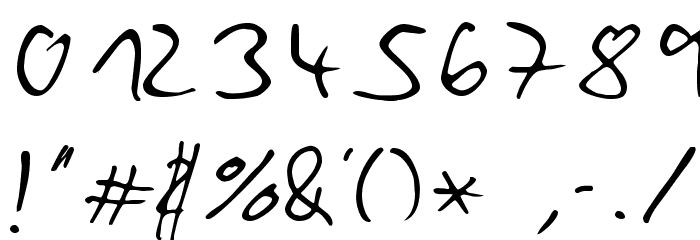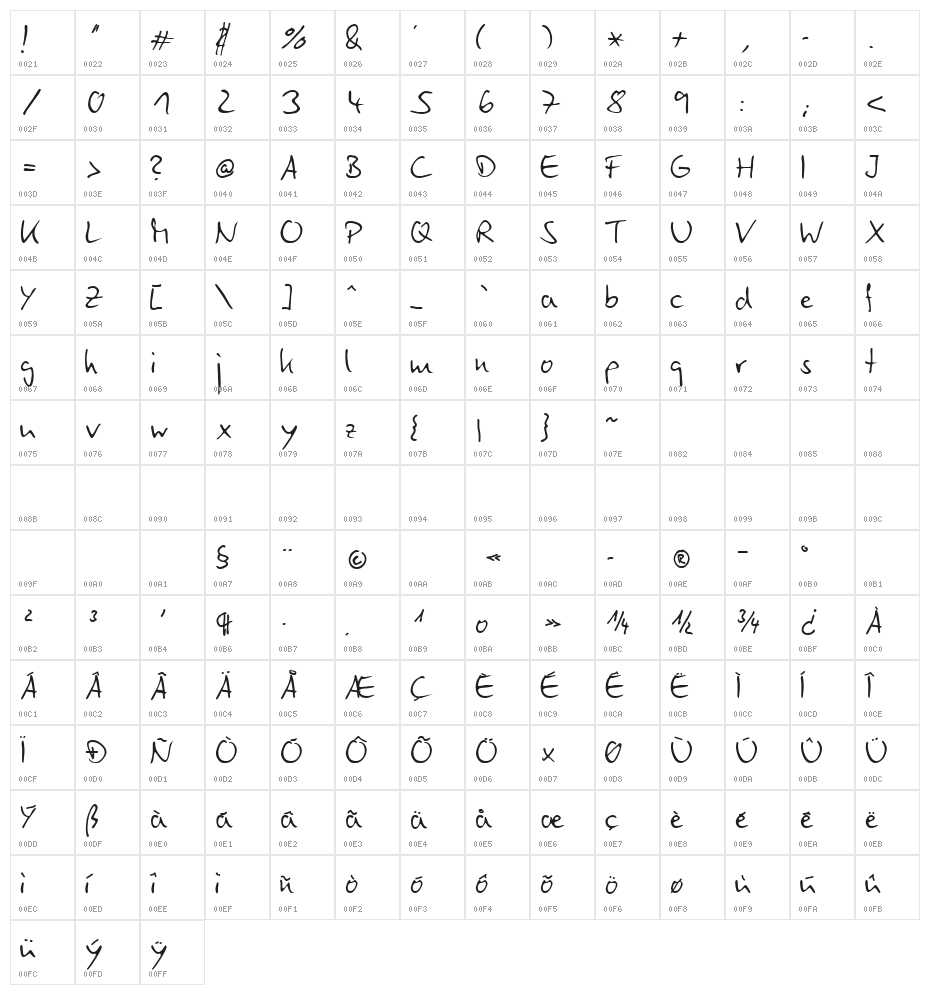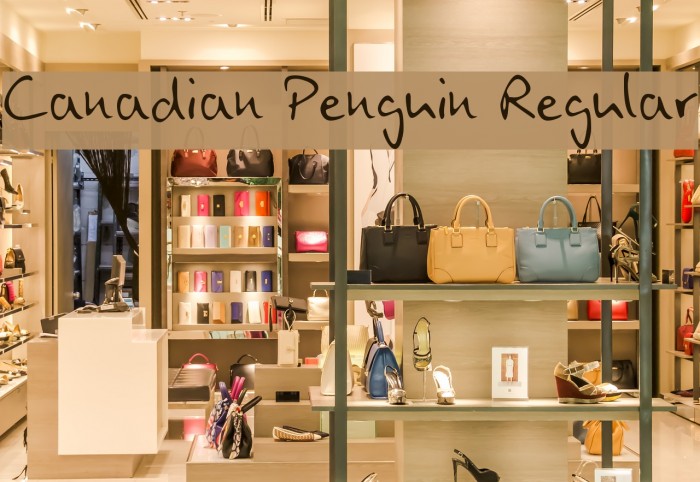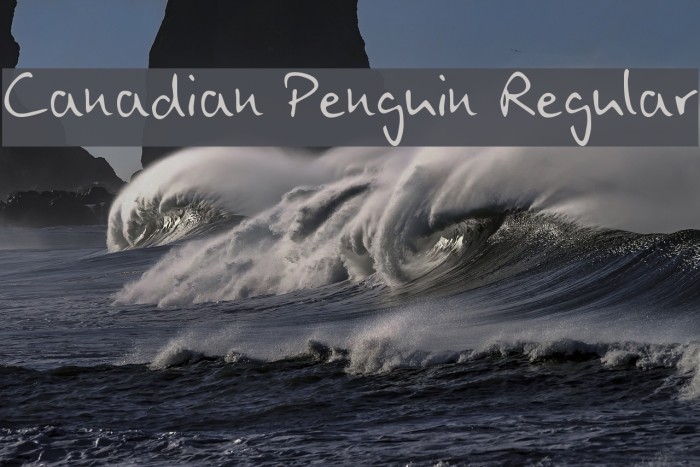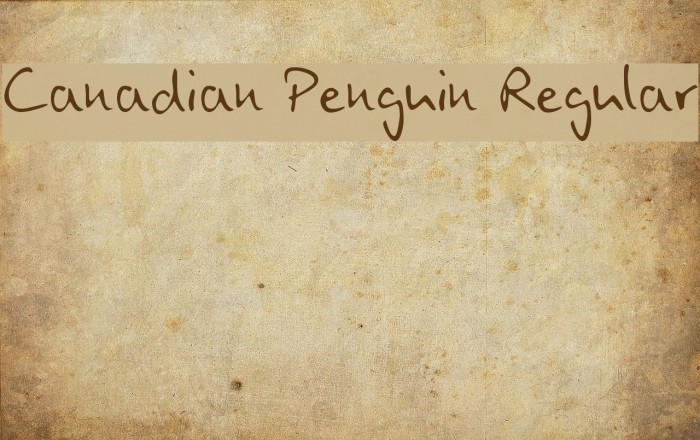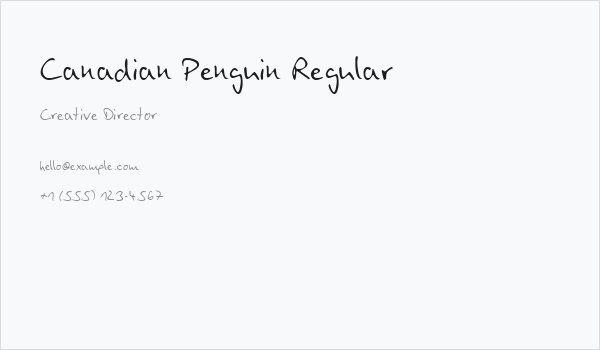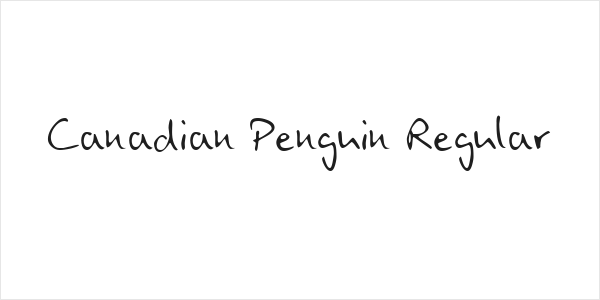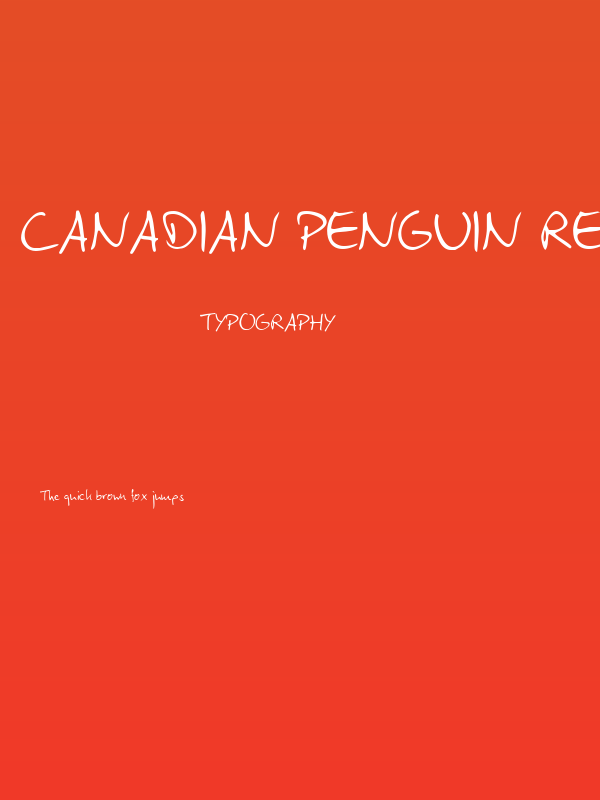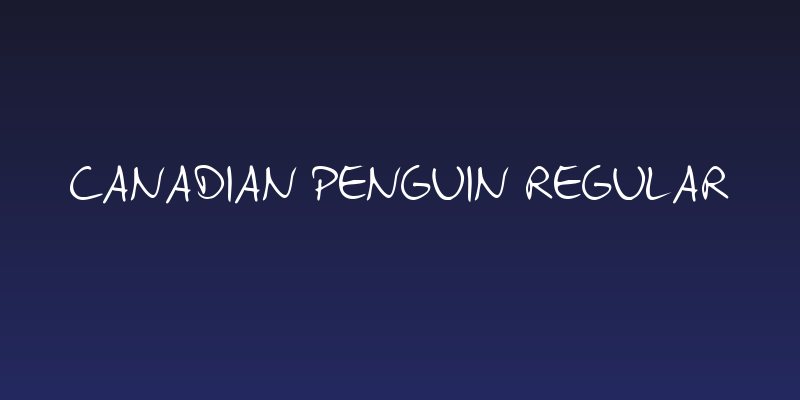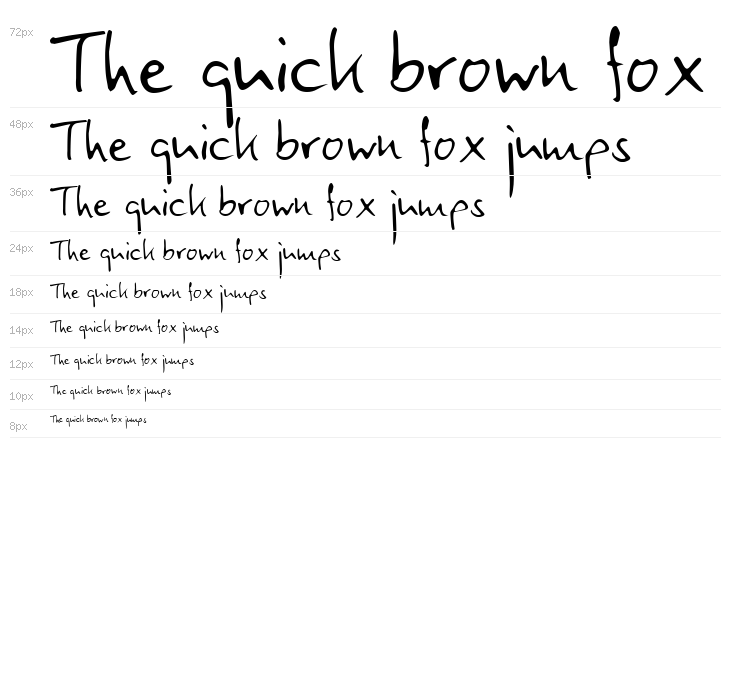
Canadian Penguin Regular Font
Canadian Penguin Regular Description
This font exudes a playful and casual handwritten style, characterized by its fluid and dynamic strokes. The letters have a natural, organic feel, with varying stroke widths that add a sense of movement and energy. The uppercase letters are bold and confident, while the lowercase letters maintain a friendly and approachable demeanor. Numbers and special characters are crafted with the same lively spirit, ensuring consistency across the typeface. The overall appearance is both artistic and legible, making it suitable for creative projects that require a personal touch.
| Overall Style | Casual, Artistic |
| Proposed Projects | Ideal for greeting cards, invitations, personal branding, and creative projects that require a personal, artistic touch. |